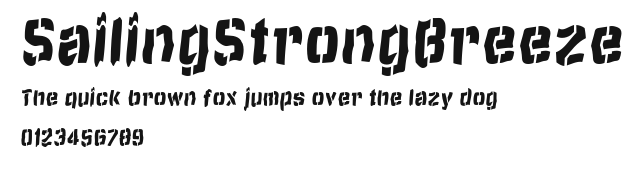
SailingStrongBreeze Preview
• Font Name: SailingStrongBreeze
• Full Font Name: SailingStrongBreeze
• PostScript Name: SailingStrongBreeze
About SailingStrongBreeze.ttf
SailingStrongBreeze.ttf is a modern, elegant sans-serif font designed for ultimate readability and visual harmony. Perfect for branding, headlines, web design, and print materials.